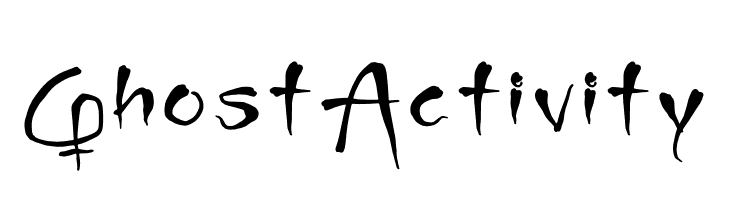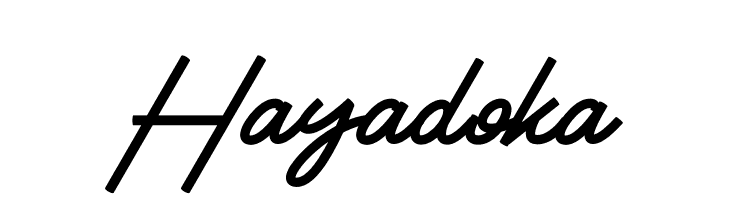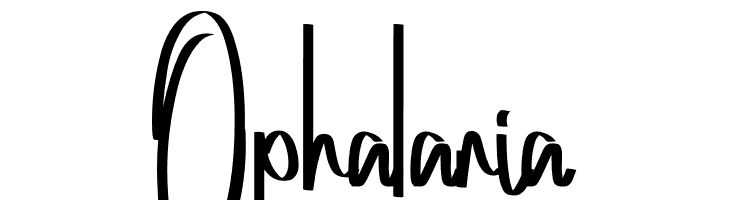
A dynamic script font with elegant, flowing strokes and modern flair.
A playful, hand-drawn font with bold, irregular strokes and a casual vibe.
A dynamic script font with elegant, flowing characters and a modern yet classic appeal.
A modern, expressive font with tall uppercase and bold lowercase letters.
A spooky, hand-drawn font with an eerie, ghostly appearance.
A sophisticated script font with elegant, flowing cursive strokes.
A playful handwritten font with artistic flair and dynamic strokes.
A modern, elegant script font with fluid, cursive strokes and medium contrast.
A dynamic, brush-style font with bold, expressive strokes.
A dramatic, hand-drawn font with sharp, elongated strokes and high contrast.